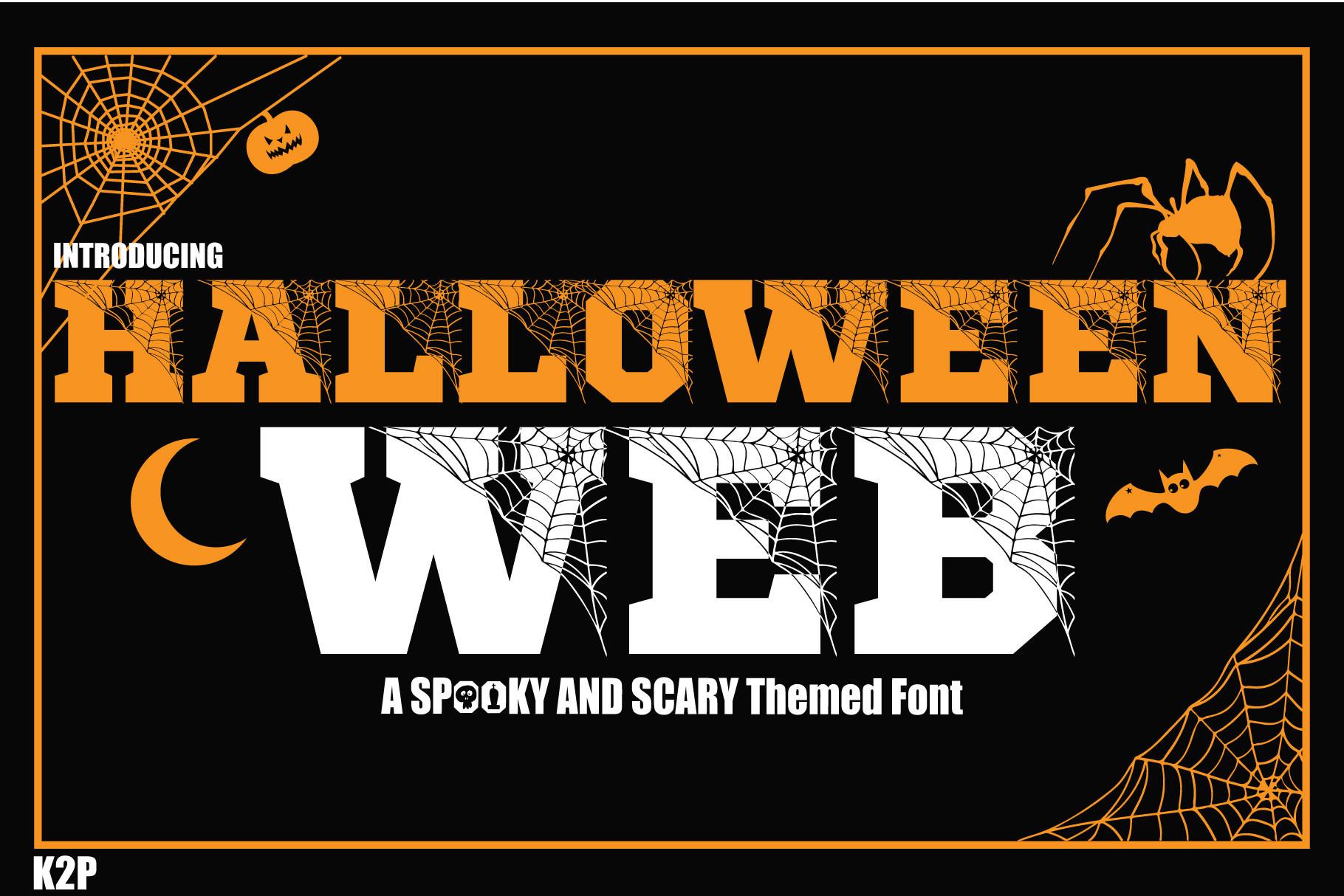
Halloween Spider Web Font Free & Premium Download
Halloween Spider Web Font Description
Halloween Spider Web is a thick lettered and incredibly unique decorative font. It can be used for various design ideas, particularly those related to the Halloween Holiday. This font is PUA encoded which means you can access all of the glyphs and swashes with ease